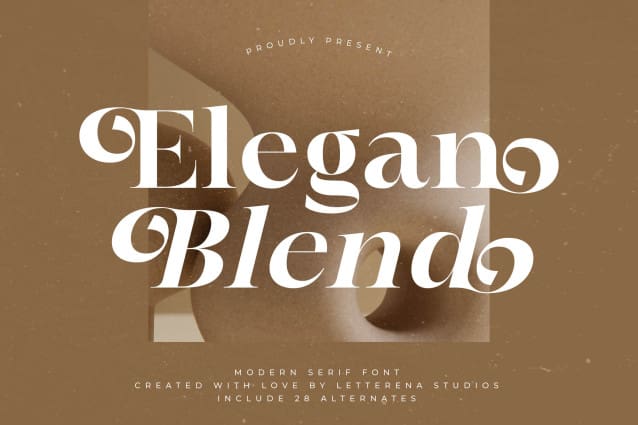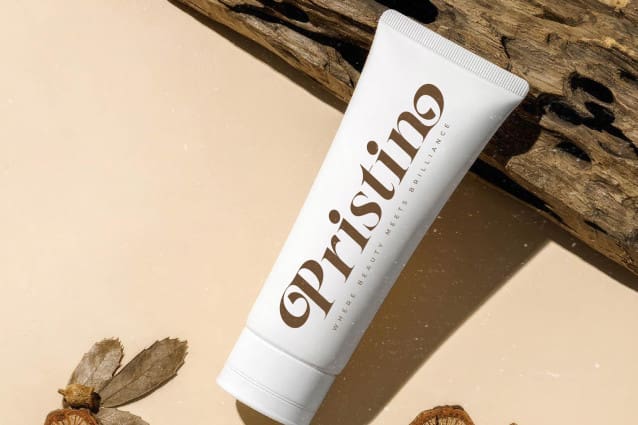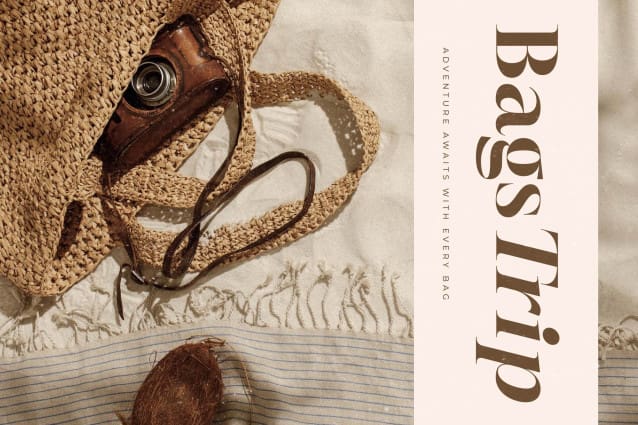
Elegan Blend Font
Elegan Blend Font – Modern Serif Font , from Letterena, is a Luxury Serif font, suitable for any projects such as: logos, branding projects, homeware designs, product packaging, mugs, quotes, posters, shopping bags, t-shirts, book covers, name card, invitation cards, greeting cards, label, photography, watermark, special events, and all your other luxury and beautiful projects that need a Luxury Serif taste.